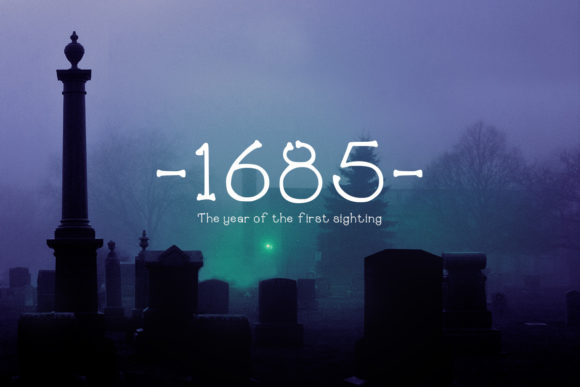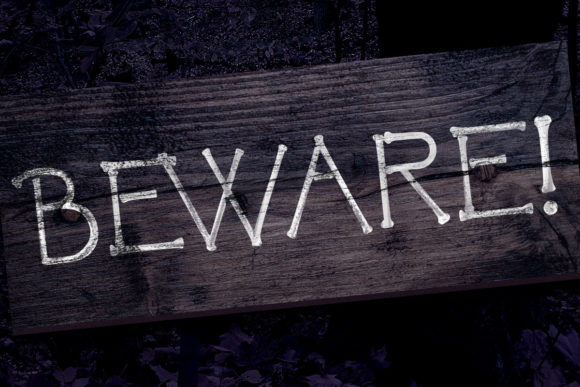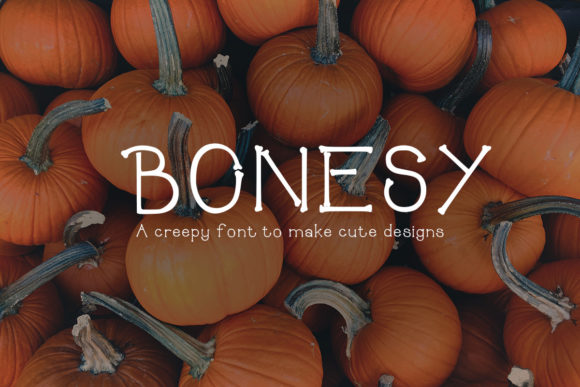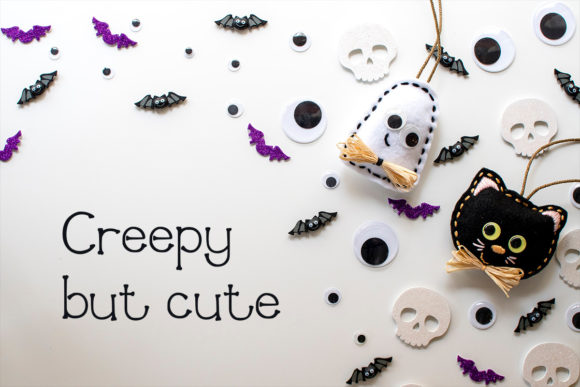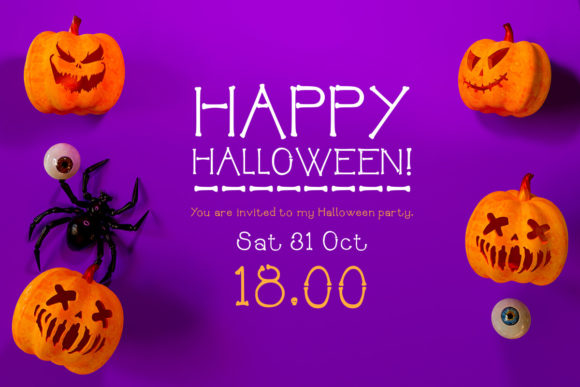
Bonesy Font: The Ultimate Decorative Font for Creative Projects
Are you a designer or crafter looking for a unique and eye-catching font to elevate your creative projects? Look no further than Bonesy Font! This cool and interesting decorative font is perfect for a wide range of applications, from product packaging and branding projects to magazine covers, social media, and wedding designs.
What Makes Bonesy Font So Special?
Bonesy Font is a one-of-a-kind decorative font that is sure to make your designs stand out from the crowd. Its unique and quirky style is reminiscent of hand-drawn lettering, but with a modern twist that makes it perfect for contemporary designs. The font features bold lines, intricate details, and a playful charm that is sure to capture the attention of your audience.
Perfect for Product Packaging and Branding Projects
Product packaging and branding projects require a font that is both stylish and attention-grabbing. Bonesy Font fits the bill perfectly, with its bold and eye-catching design that is sure to make your products stand out on store shelves. Whether you’re designing labels for food products, cosmetics, or other consumer goods, Bonesy Font is the perfect choice.
Elevate Your Magazine Covers and Social Media Designs
Magazine covers and social media designs require a font that is both stylish and attention-grabbing. Bonesy Font is the perfect choice for these applications, with its bold and eye-catching design that is sure to capture the attention of your audience. Use it to create stunning magazine covers, social media graphics, and other visual content that will leave a lasting impression on your followers.
Make Your Wedding Designs Unforgettable with Bonesy Font
Wedding designs require a font that is both romantic and stylish. Bonesy Font is the perfect choice for wedding designs, with its elegant and sophisticated design that is sure to make your wedding stationery, signage, and other materials unforgettable. Use it to create stunning wedding invitations, save-the-date cards, and other materials that will set the tone for your special day.
Key Features of Bonesy Font
- Unique and quirky style: Bonesy Font features a one-of-a-kind design that is sure to make your designs stand out from the crowd.
- Bold lines and intricate details: The font features bold lines and intricate details that give it a hand-drawn feel.
- Playful charm: Bonesy Font has a playful charm that is sure to capture the attention of your audience.
- Perfect for product packaging and branding projects: The font is ideal for product packaging and branding projects that require a stylish and attention-grabbing design.
- Experiment with different colors and textures: Bonesy Font looks great in a variety of colors and textures, so don’t be afraid to experiment and find the perfect combination for your design.
- Use it as a headline font: Bonesy Font is perfect for headlines and titles, so use it to create eye-catching headings that will grab the attention of your audience.
- Pair it with other fonts: Bonesy Font pairs well with other fonts, so don’t be afraid to experiment with different font combinations to create a unique and stylish design.
Bonesy Font is a cool and interesting decorative font that is perfect for a wide range of creative projects. Its unique and quirky style, bold lines, and intricate details make it a great choice for product packaging, branding projects, magazine covers, social media, wedding designs, and more. With its easy-to-use design and versatile style, Bonesy Font is a must-have for designers and crafters who want to take their designs to the next level.